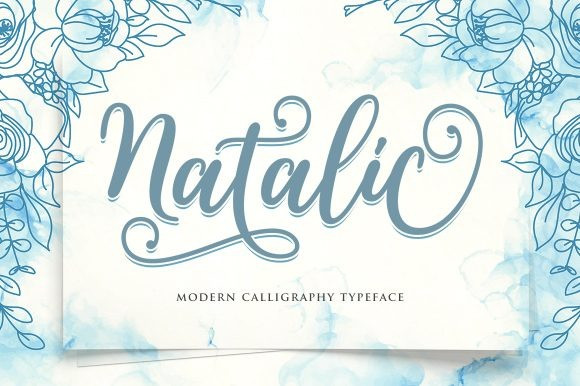
Natalic Script Font
Natalic Script Font is a beautiful light handwritten font with a unique feel and a stunning impact. It will add a luxury spark to any design project that you wish to create! This font is PUA encoded which means you can access all glyphs and swashes with ease!